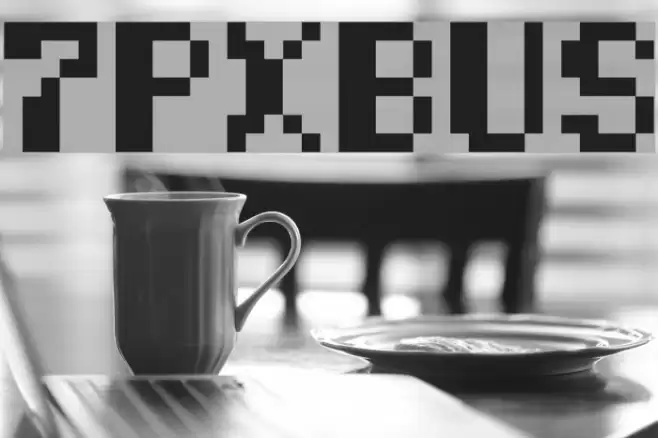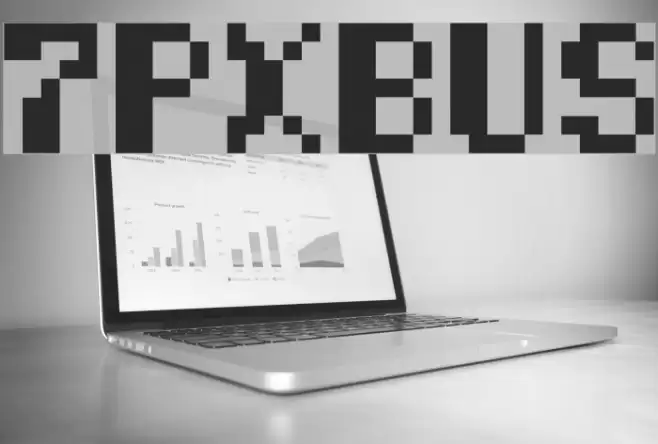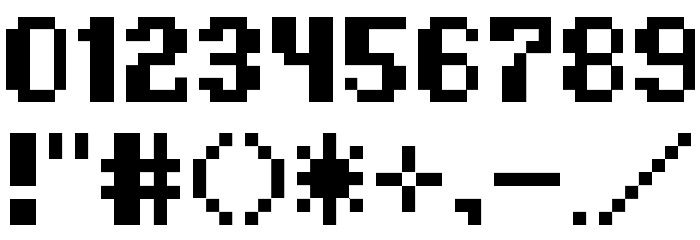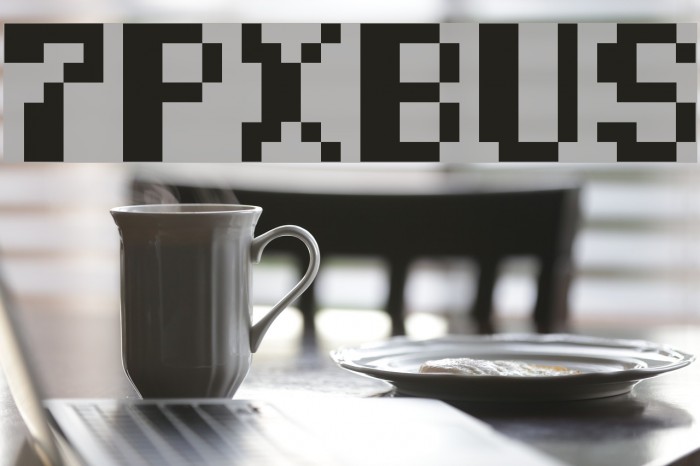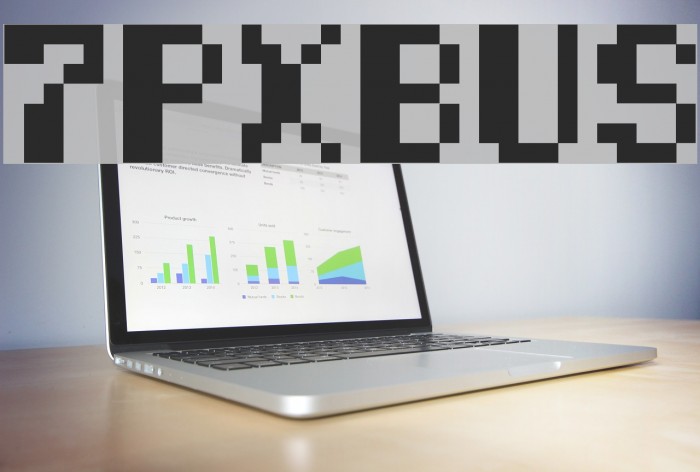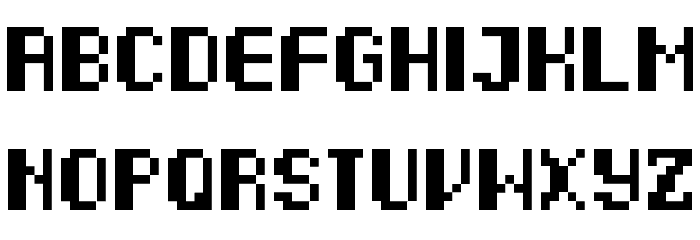
7pxbus Font
7pxbus Description
This font features a bold, pixelated design reminiscent of early digital displays and retro video games. Each character is constructed with a grid-like precision, offering a blocky and geometric appearance. The uniformity in height and width across all characters provides a cohesive and structured look. The font's simplicity and clarity make it highly legible even at smaller sizes, while its nostalgic aesthetic evokes a sense of vintage computing. The characters are evenly spaced, ensuring readability and balance. This style is particularly effective in conveying a tech-savvy or retro theme.
A bold, pixelated font with a retro digital aesthetic from Uncategorized fonts.
- Overall Style: Vintage